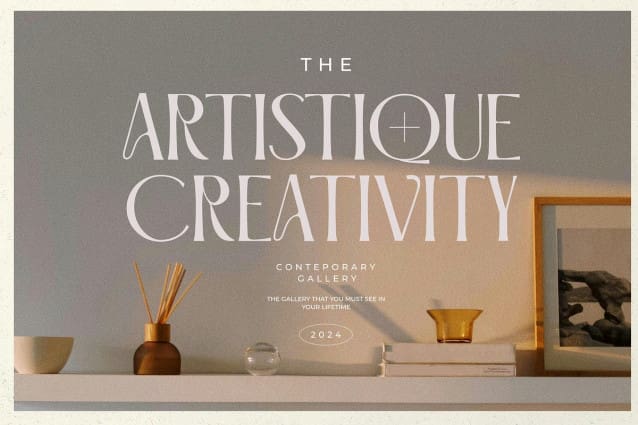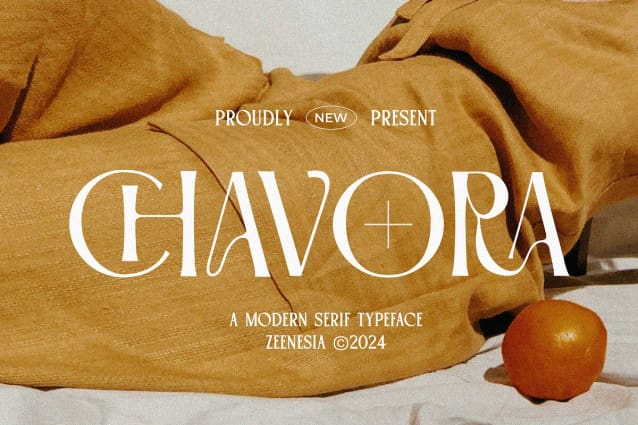
Chavora Font
Chavora Font is a distinctive serif font that embodies strength and individuality. With its unique letterforms and bold presence, Chavora balances elegance and modernity, making it a perfect choice for impactful headlines, sophisticated branding, and editorial designs. Its finely crafted serifs and dynamic shapes add a touch of refinement while maintaining versatility across various creative applications. Whether used for digital projects or printed works, Chavora ensures a captivating visual impression.